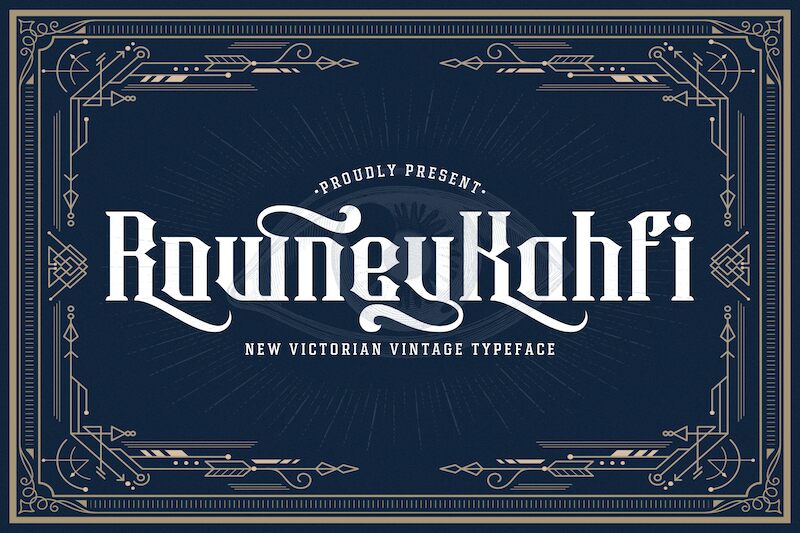
Rowney Kahfi is the perfect display font for projects that require a retro vibe. Designed by StringLabs, this condensed font features bold lettering that grabs attention and adds a touch of nostalgia to any design. Its unique style makes it a great choice for vintage posters, album covers, and branding projects that need an eye-catching display font. With Rowney Kahfi's condensed width, it allows for more text to fit in limited spaces without compromising on legibility. Add a touch of old-school cool to your next project with Rowney Kahfi! Check out more amazing fonts from StringLabs at stringlabscreative.com.